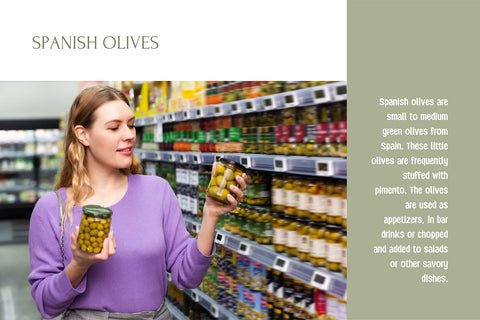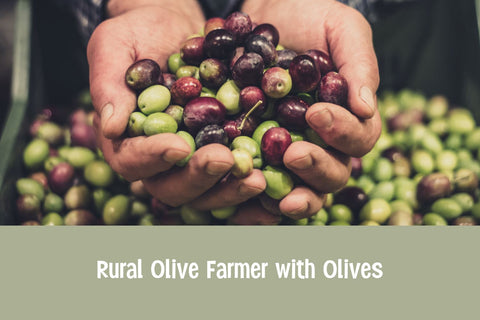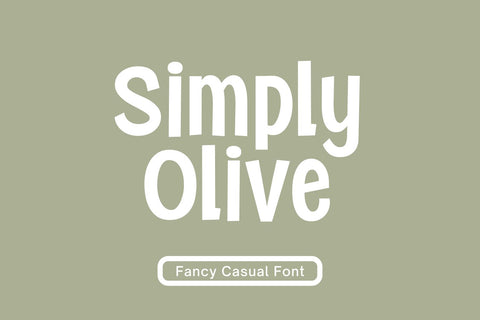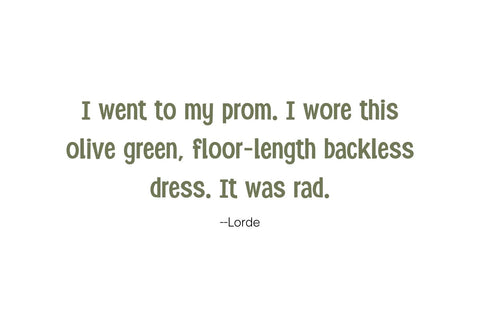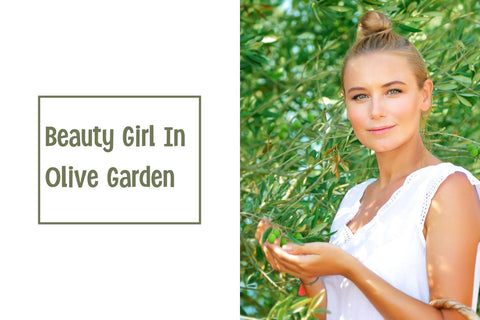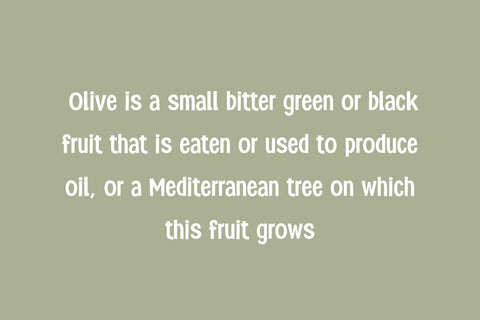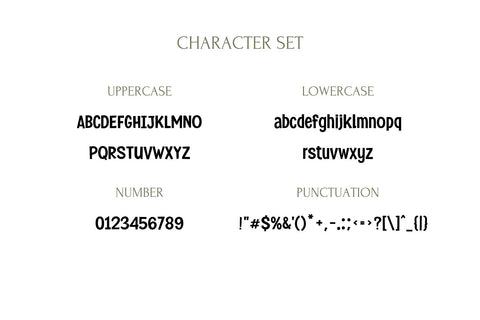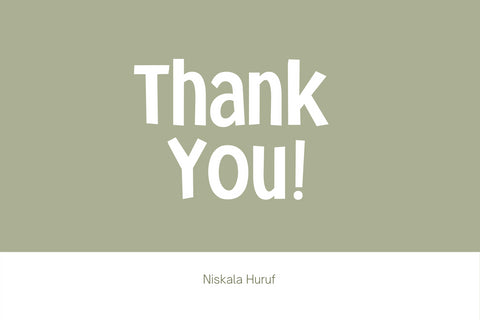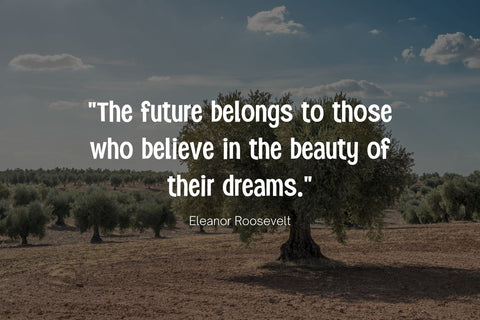
Simply Olive - a Fancy Casual Font
Simply Olive is a cool, bold and fun looking display font. It can easily be matched to an incredibly large set of projects, so add it to your creative ideas and notice how it makes them stand out!